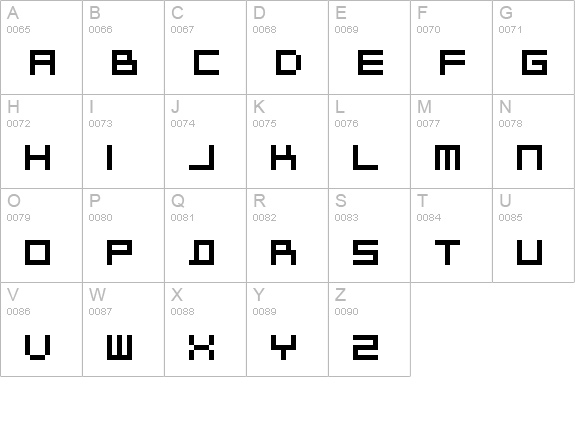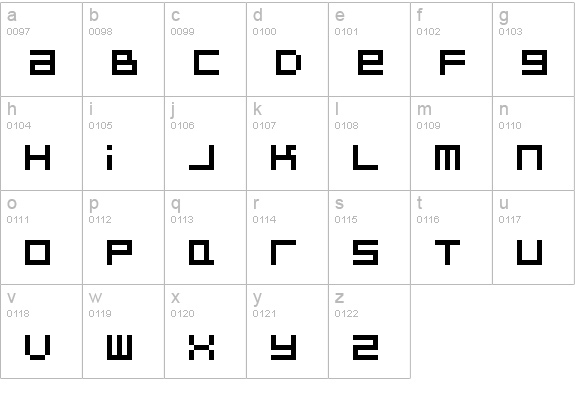
TR BitDust Two Font Details
TR BitDust Two is a modern and stylish font that exudes a sense of sophistication and elegance. With its unique geometric shapes and clean lines, this font is perfect for creating eye-catching designs that demand attention. The sleek and streamlined appearance of TR BitDust Two makes it versatile for a wide range of projects, from logos to branding materials to editorial designs. One of the best features of TR BitDust Two is that it is completely free to download. You can easily access this font at FontsMarket.com, where you can enhance your creative projects without any additional costs. Whether you are a designer looking to experiment with a new typeface or a business owner seeking a fresh look for your brand, TR BitDust Two is the perfect choice for adding a touch of sophistication to your designs. Download it today and elevate your projects with this modern and elegant font.